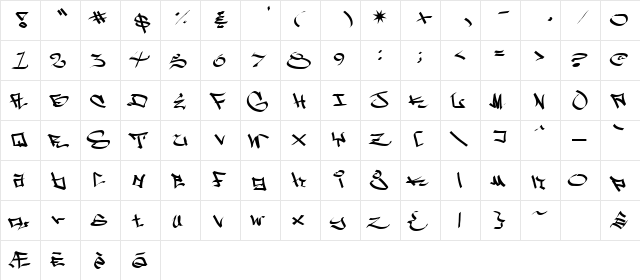
FFX Grafitti Plain
Design Context for FFX Grafitti Typeface
FFX Grafitti is a composed and adaptable typeface that performs quietly and consistently across a wide range of design contexts.